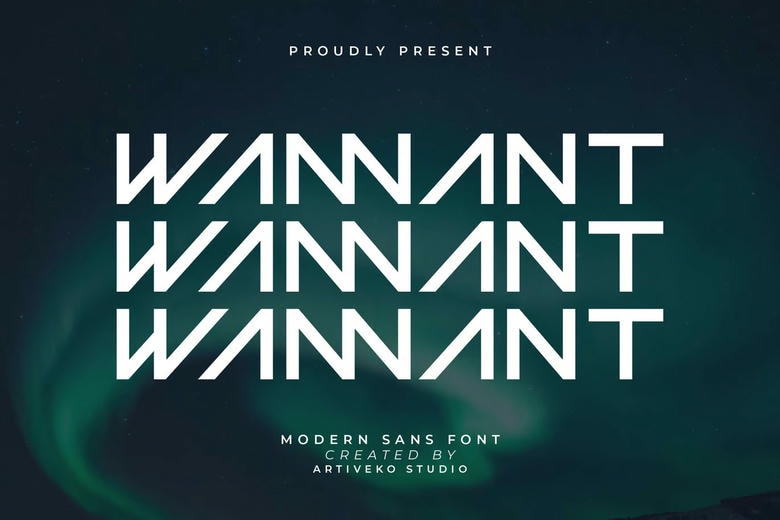
Wannant Font
Wannant is a Modern Sans Serif Font. This font is perfect for elegant logos, branding, travel promotions, layout magazines, beauty products, product packaging, quotes, or simply as a stylish text overlay onto any background image.
Wannant Sans Serif Font